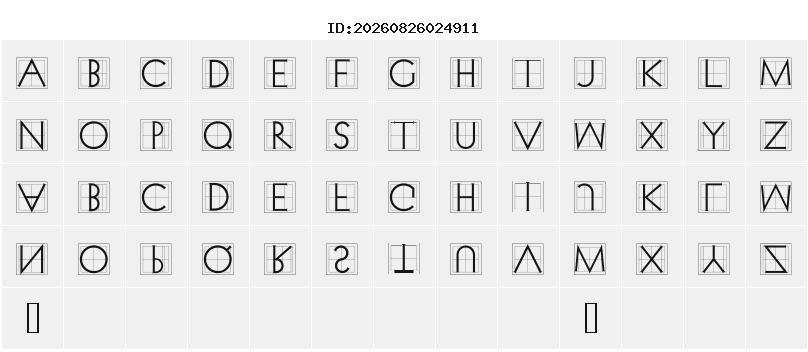
• Font Name: XperimentypoThree
• Font Style: Squares
• Font ID: Macromedia Fontographer 4.1.3 XperimentypoThree Squares
• Full Font Name: XperimentypoThree Squares
• Version: Macromedia Fontographer 4.1.3 04.12.2001
• PostScript Name: XperimentypoThreeSquares
• Character Count: 73
About XperimentypoThree.ttf
XperimentypoThree.ttf is a modern, elegant sans-serif font designed for ultimate readability and visual harmony. Perfect for branding, headlines, web design, and print materials.